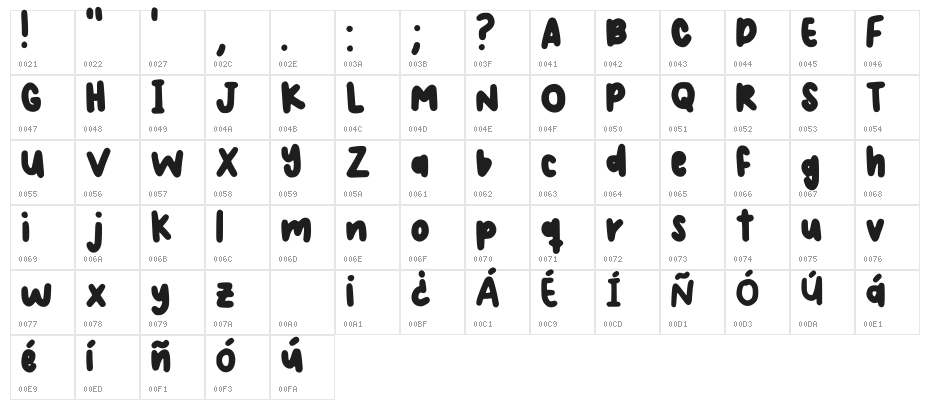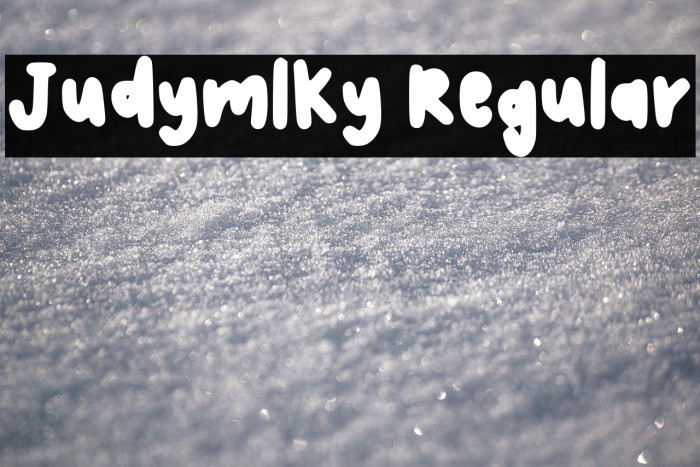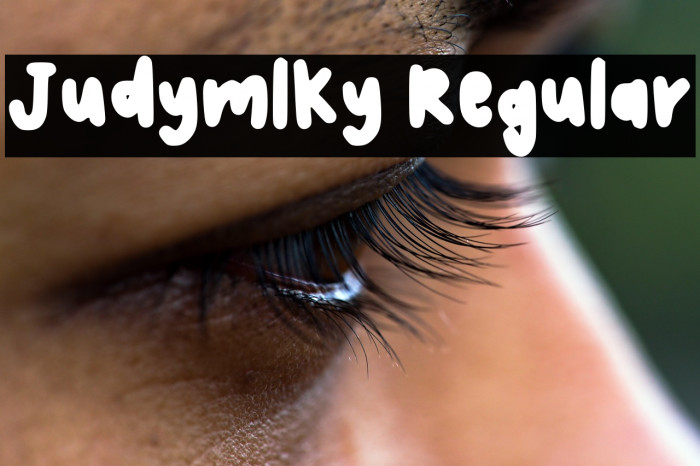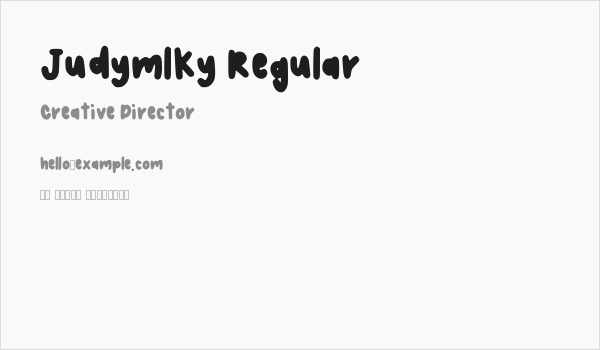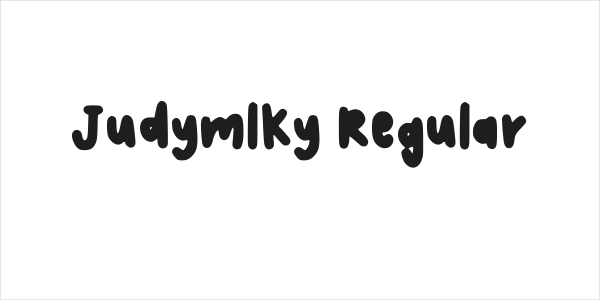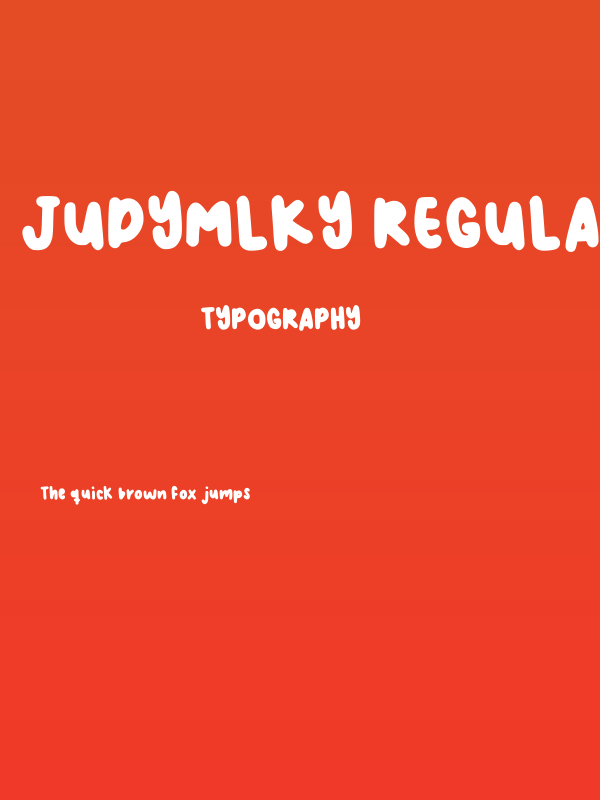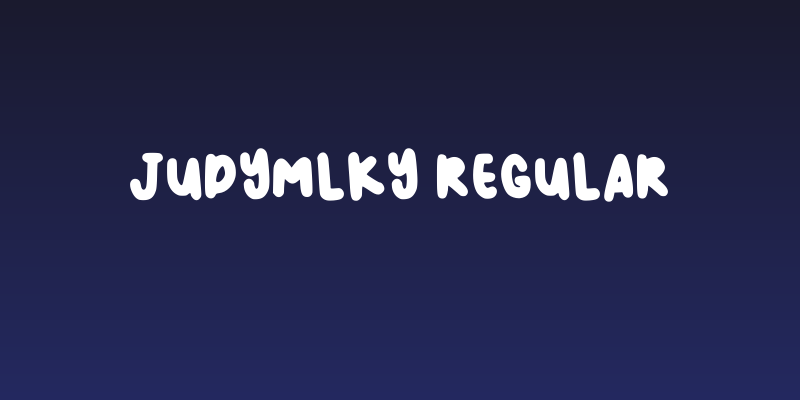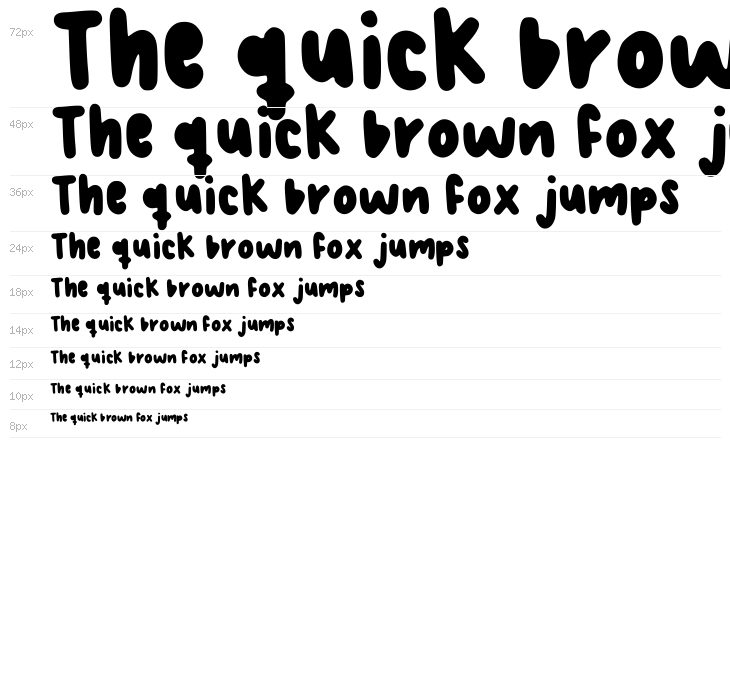
Judymlky Regular Font
Judymlky Regular Description
This font features a playful and bold style with rounded edges and a hand-drawn appearance. The characters are thick and uniform, giving it a strong presence. The uppercase and lowercase letters maintain a consistent weight, contributing to its cohesive look. The font's informal and friendly vibe makes it suitable for creative and casual projects. Its unique character shapes, such as the rounded 'a' and 'g', add to its charm. The numerals and special characters are equally bold and maintain the playful aesthetic, ensuring versatility across different uses.